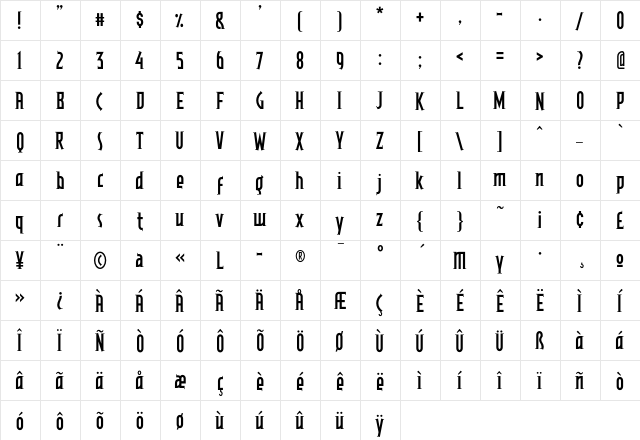
Konfactur-One Regular
Design Context for Konfactur-One Typeface
Konfactur-One offers clean, dependable letterforms without strong stylistic allegiance, making it a practical choice for designers who need flexibility.
Pro Tip: Pair Konfactur-One with a font of contrasting weight or personality to build a more expressive typographic hierarchy.